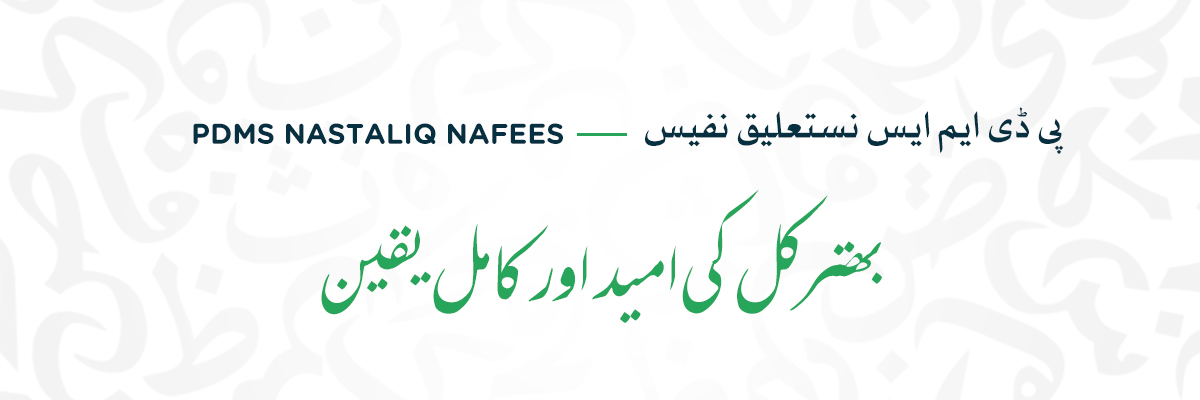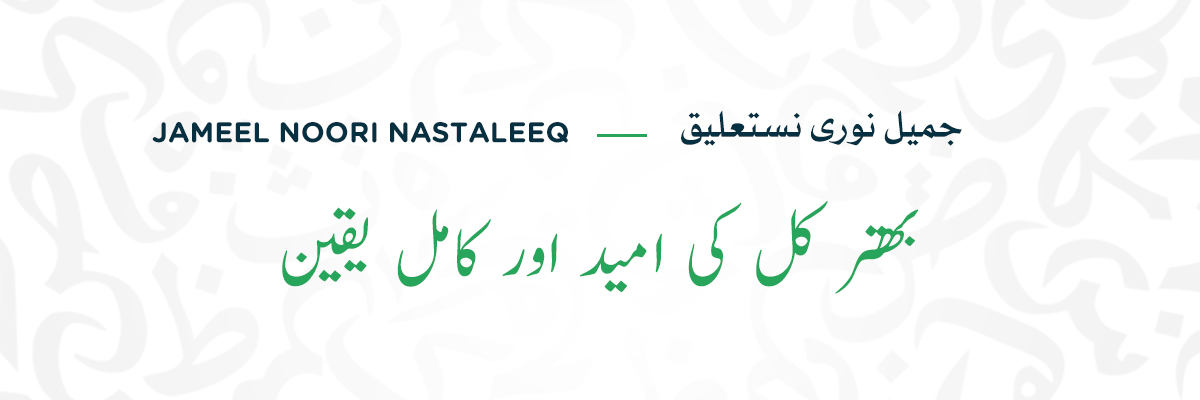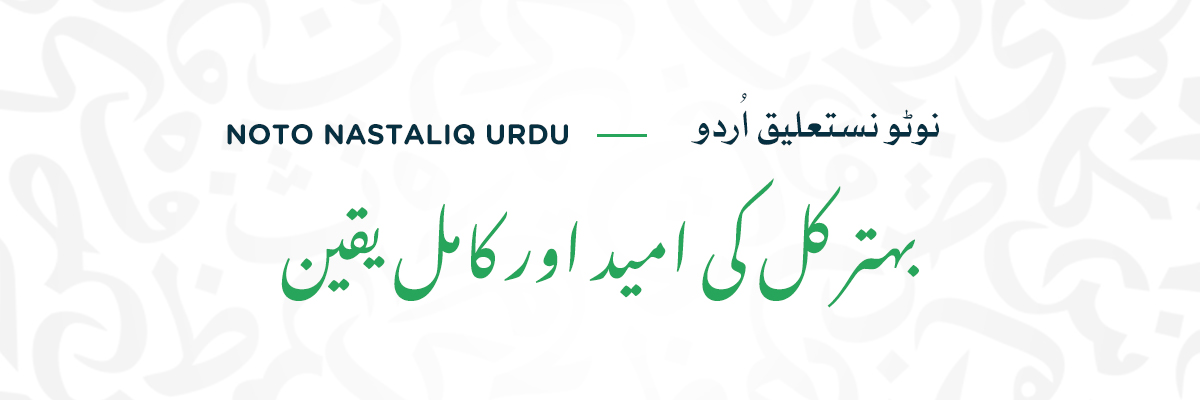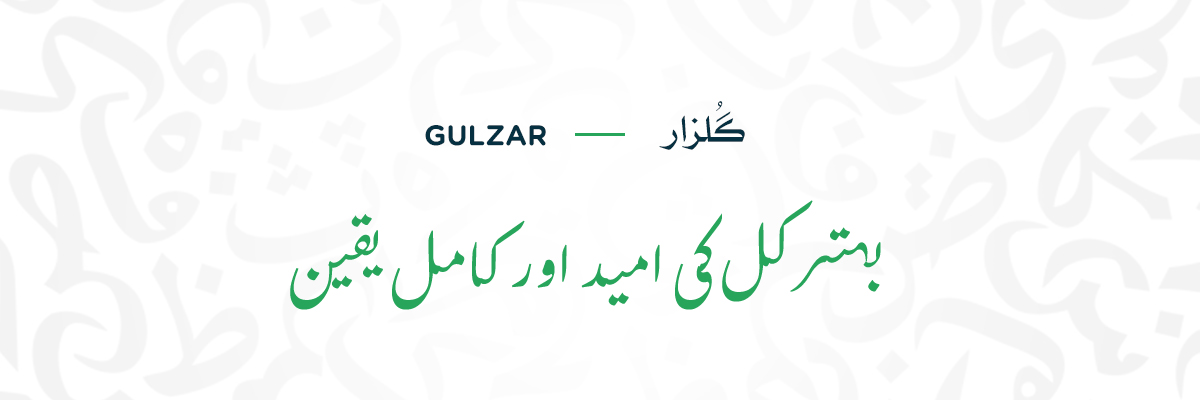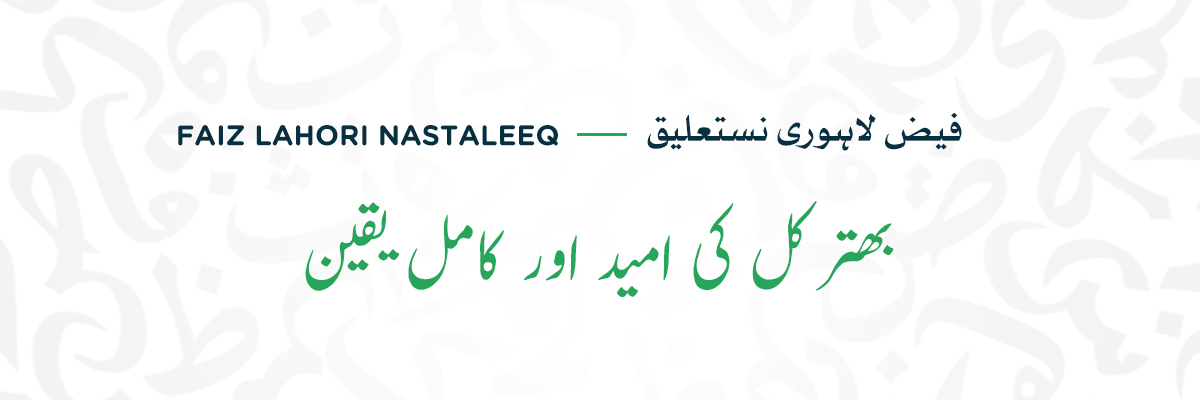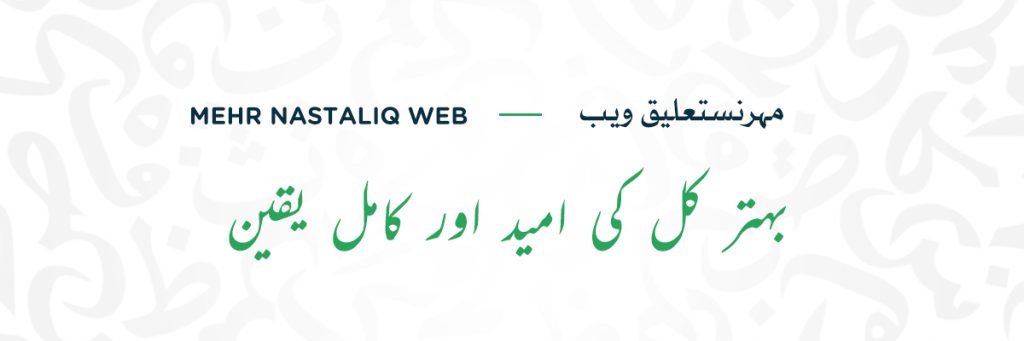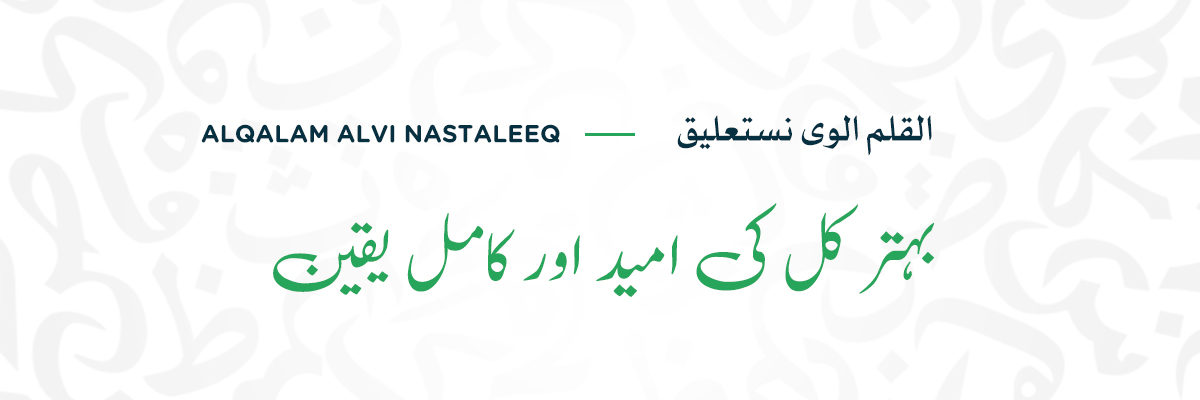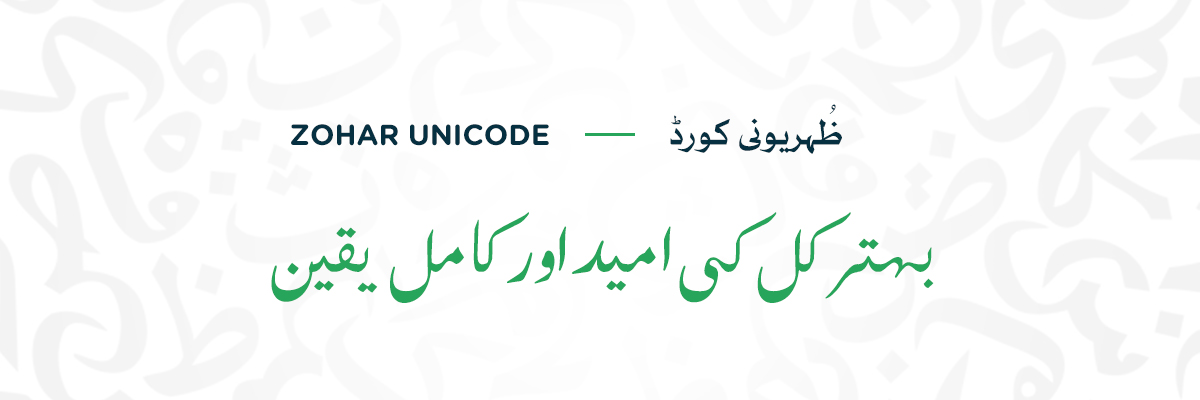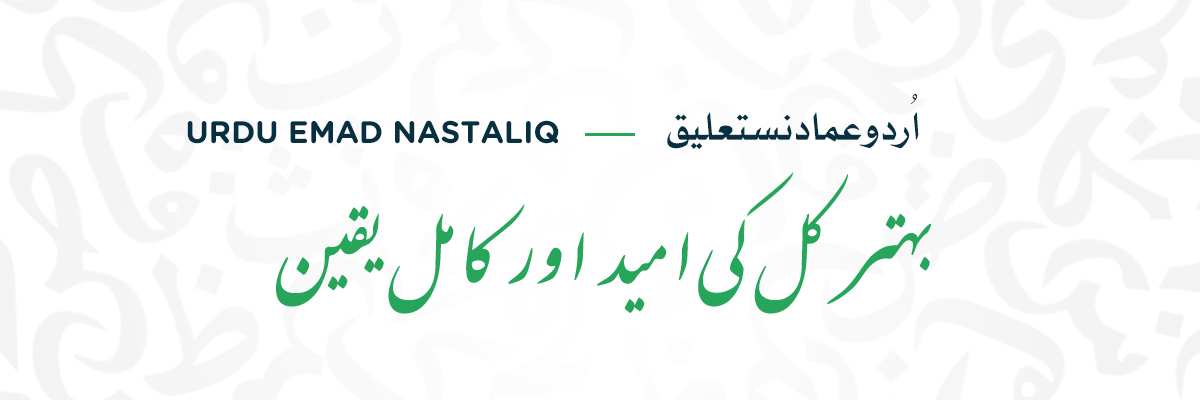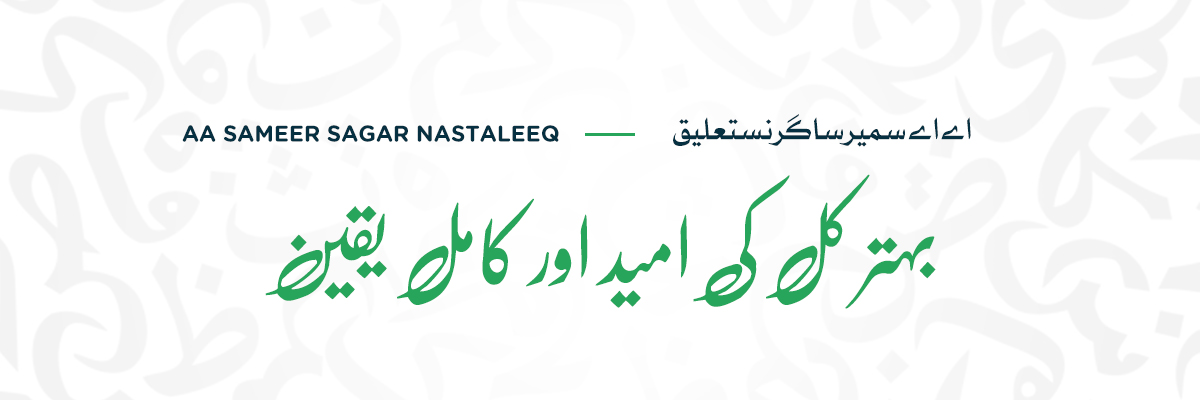
Nastaleeq is a beautiful writing style of Urdu with a rich history that started in Persia in the 14th century. It became popular in the Mughal courts and is now the most used script for Urdu in Pakistan. From newspapers and magazines to printing books and documents, this script is deeply rooted in Pakistani culture. There are hundreds of such fonts available based on this script. However, with so many choices out there, every now and then, a designer feels unsure about selecting the perfect Nastaleeq Urdu font for their projects. Therefore, we have taken the pleasure of presenting to you not one but ten such celebrated typefaces that are widely used for different typographic applications.
Known for its elegant slanted letterforms offering smooth flow, Nastaleeq has become a signature writing style for South Asians who want to maintain the legitimacy of traditional Urdu calligraphy. It is not just a way to write but an art form that connects people to their heritage. This script is used in poetry, literature, newspapers, and advertisements, adding beauty to Urdu. Many honorable names have devoted their lives to keep it alive and thrive digitally. Ahmad Jameel Mirza, designer of Jameel Noori Nastaleeq, is one of many. But he was more than a simple typeface designer; he had the honor of pioneering an Urdu font that became the beacon for other designers to produce their own Nastaliq fonts. Learn about Top Urdu Calligraphers who devoted their lives for its flourishment.
List of Top 10 Nastaleeq Urdu Fonts
| No. | Font Name | Designer(s) | Glyphs | Description |
|---|---|---|---|---|
| 1 | Jameel Noori Nastaleeq | Mirza Ahmad | 25,269 | Stylish Urdu font with dynamic thickness and elegant Nastaliq script. |
| 2 | Noto Nastaliq Urdu | 1,138 | Cursive, modulated Nastaliq font with various weights for versatility. | |
| 3 | Gulzar | Borna Izadpanah, Fiona Ross, Alice Savoie, Simon Cozens | 1,161 | Contemporary Urdu Nastaliq with Qalam writing style and moderate thickness. |
| 4 | Faiz Lahori Nastaliq | Ahmad Mirza Jamil | 44,920 | Slanted Urdu font with ligatures, inspired by Nastaliq and Naskh scripts. |
| 5 | Mehr Nastaliq Web | Zeeshan Nasar | 483 | OpenType Urdu Nastaliq font influenced by Nasrullah Mehr’s calligraphy. |
| 6 | AA Sameer Sagar Nastaleeq | Jawad, Arif Karim, Aijaz Akhtar | 1,001 | Slanted decorative Urdu font with thick and elegant letters. |
| 7 | Al Qalam Alvi Nastaleeq | Amjad Hussain Alvi, Shakir ul Qadree | 16,982 | Qalam writing Urdu font with even spacing and rounded corners. |
| 8 | Zohar Unicode | Syed Manzar Hasan Zaidi | 497 | Natural and authentic Nastaliq font with flowing and untidy handwritten look. |
| 9 | Urdu Emad Nastaliq | Jawad, Arif Karim, Aijaz Akhtar | 1,480 | Oblique Urdu font with elongated thin terminals and slightly condensed look. |
| 10 | PDMS Nastaliq Nafees | Kashif Hisam | 385 | Simple and elegant Urdu font with consistent thickness and slightly thin edges. |
Jameel Noori Nastaleeq – The Best Nastaleeq Urdu Font
Jameel Noori Nastaleeq is a classical Urdu font designed by Pakistani calligrapher Mirza Ahmad Jameel. This font set the basis for other typefaces that developed later in this region. If you want to learn more about it, read our guide on the Story of Jameel Noori Nastaleeq for better understanding. The typeface comes with dynamic thickness, with flowing lines and curves that perfectly reflect the traditional Nastaliq script. The varying thickness of strokes gives it a sense of movement and grace. Its 428 characters and massive 25,269 glyph count make it suitable for various languages like Urdu, Arabic, Latin, and Persian. The font’s appearance is elegant and sophisticated but it is highly readable as well. All these attributes make it ideal for projects such as branding, advertising, and invitations, where a touch of tradition is necessary. Moreover, it is available in 2 different styles, which are as follows:
Noto Nastaliq Urdu
Noto Nastaliq Urdu which is carefully designed and released by Google, is a versatile font specifically made for Urdu and other Middle Eastern scripts. It offers a modulated (“serif”) style, with thick and thin strokes that create contrast for legibility. The font comes in different weights, adding versatility to its use. It is perfect for creating variations in design using different weights. With 1,138 glyphs and support for 281 characters, it is highly adaptable. This font maintains a classic and flowing appearance, making it perfect for calligraphy projects, branding, and advertising. Its traditional yet modern look makes it a favorite among designers. It is compatible with over 100 languages across various design platforms. Its weights are as follows:
Gulzar – Elegant Nastaleeq Urdu Font For Literary Work
Gulzar is a contemporary Urdu Nastaleeq font created by Borna Izadpanah, who was commissioned by Google and Fiona Ross, Alice Savoie, and Simon Cozens were hired as consulting engineers for this project. Early digital typefaces like Monotype’s Noori Nastaliq and Linotype’s Sheeraz and Qalmi paved the way for its formation. Released in 2022, it consists of 413 characters and 1,161 glyphs, supporting 417 languages, including Urdu, Persian, Pashtu, and Arabic. Gulzar offers a Qalam writing style with moderate thickness, elegant appearance, and diagonal letterforms. Its consistent thickness and slightly slanted edges provide a formal yet easy-to-read aesthetic. Gulzar is not the first OpenType Nasta’liq typeface, but it is the first Nasta’liq type to have an original Latin counterpart designed, making it ideal for creative posters, books, newspapers, and official documents. It includes all of the transliteration characters needed to transcribe Arabic, Persian, and Urdu languages.
Faiz Lahori Nastaleeq
The Lahori style of Nastaleeq is a subtype of Persian Nastaleeq. Munshi Abdul Majeed Parveen Raqam and Munshi Tajuddin Zareen Raqam made small tweaks and improvements to make it look even more elegant. Faiz Lahori Nastaleeq is an example of that. It is a slanted Urdu font with beautiful oblique and elegant letters, with influences from Naskh. This font, designed by Ahmad Mirza Jamil, offers a clean, minimal look with even spacing, rounded corners, and long edges. With 391 characters and a huge glyph count of 44,920, it supports multiple languages, making it versatile for various projects. Its changing thickness and contrasting strokes add depth to its appearance, making it suitable for books, newspapers, and Islamic texts. Learn more about Perso-Arabic Nastaliq script and how it gave life to South Asian languages.
Conclusion
Nastaleeq fonts are vital for preserving the cultural and artistic spirit of Urdu in Pakistan. As technology grows, more high-quality Nastaleeq fonts are available to create beautiful Urdu text in print and digital media. These fonts help writers, poets, and designers express themselves creatively while honoring an age-old tradition. There are many Nastaleeq fonts to choose from, making it easy for anyone to find a style that fits their needs. Using the fonts we picked for you, you can keep the Urdu language and culture alive, ensuring they remain a key part of Pakistani identity and expression. At urdufonts.com, you can easily find and download these and many other similar typefaces for your personal use.